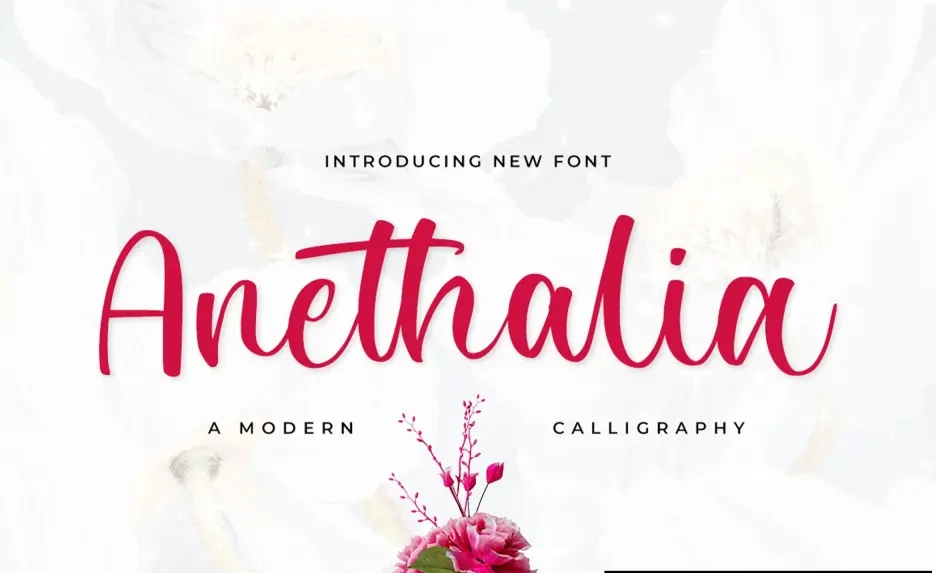
Anethalia is a beautifully crafted wedding font that embodies elegance and sophistication. Perfect for invitations, save-the-dates, and other wedding-related designs, this font adds a personal touch to your special day.
- Stylish script with a modern flair
- Supports multilingual characters
- Easy to read and aesthetically pleasing
- Styles: Script
- Weights: Regular, Bold
- Ideal for wedding invitations, menus, and signage
- Combine with complementary serif fonts for a balanced look
- Use in both digital and print formats for maximum impact